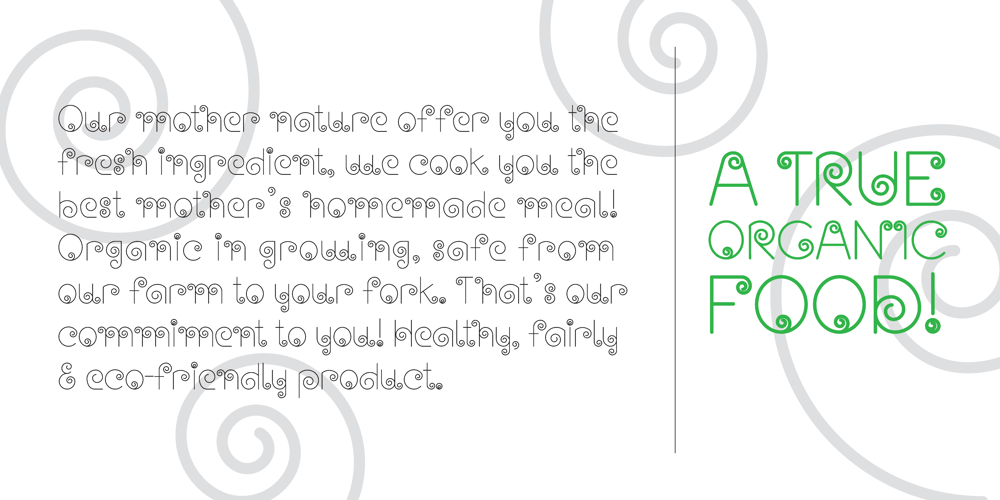
Paku Font Family was designed by Lee Kah Khiong and published by Kah Khiong Design. Paku contains 2 styles and family package options. Paku, a typeface that grow on the inspiration of fiddlehead (fern), taking Fibonacci curve as the base, with influence of Art Nouveau & Art Deco, it evolves into a simple yet magical typeface. The spiral’s characteristic in the typeface give the stylish impression of grace, rhythmic, classical & poetry. It’s unique & distinctive looks suitable for any surface printing, publishing, branding, packaging, advertising & digital content.